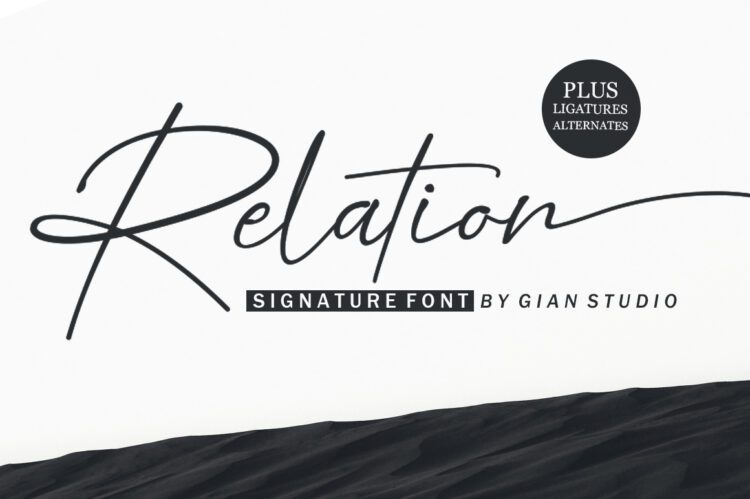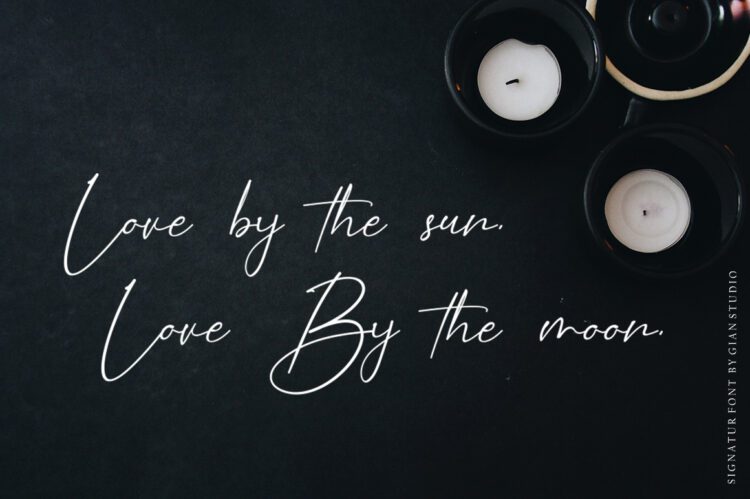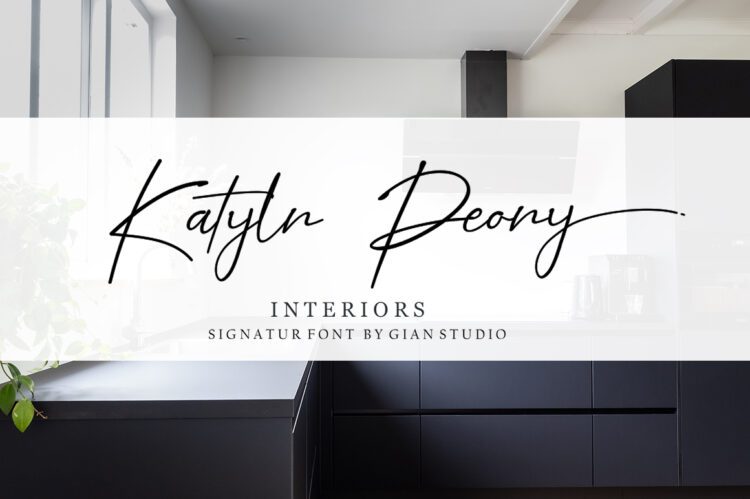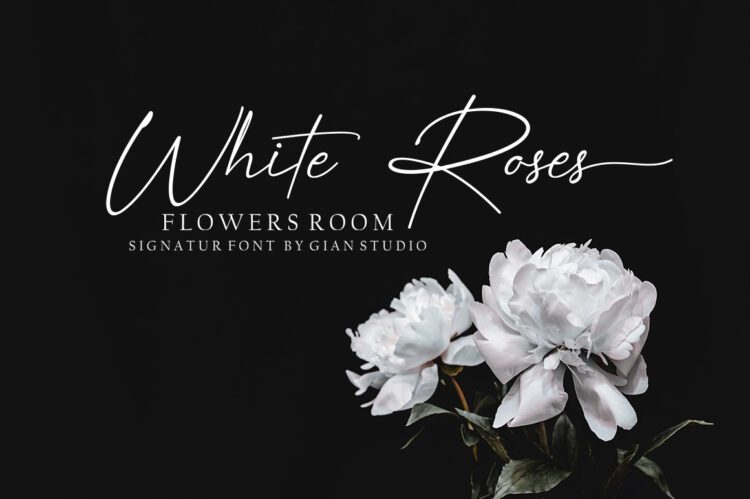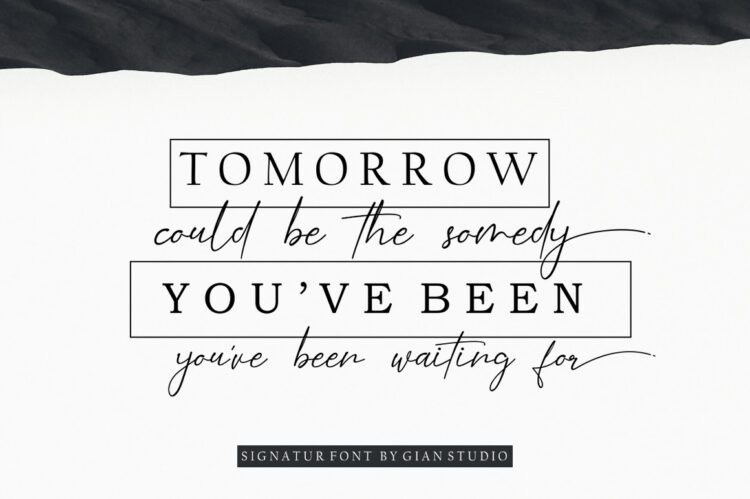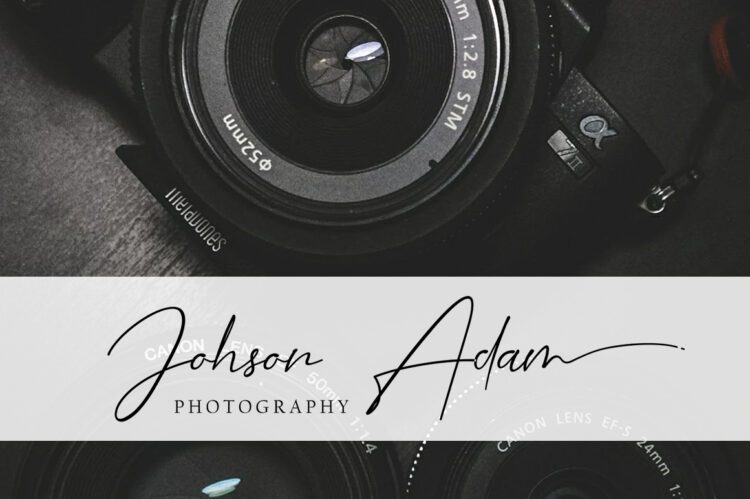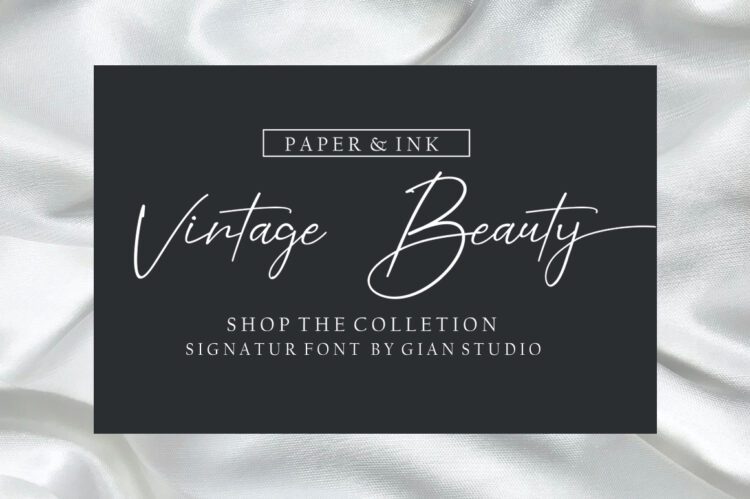
Relation
Relation is a modern calligraphy font with a contemporary handwritten style, this font is perfect for branding, wedding invitations, magazines, mugs, business cards, quotes, posters and more, you can try it first if you want to buy this font.
Relations are equipped with 350 glyphs. and by having lots of these glyphs you will be able to choose letters according to your preferences, lots of variations and choices for each letter, so you.
Relation | a modern calligraphy font